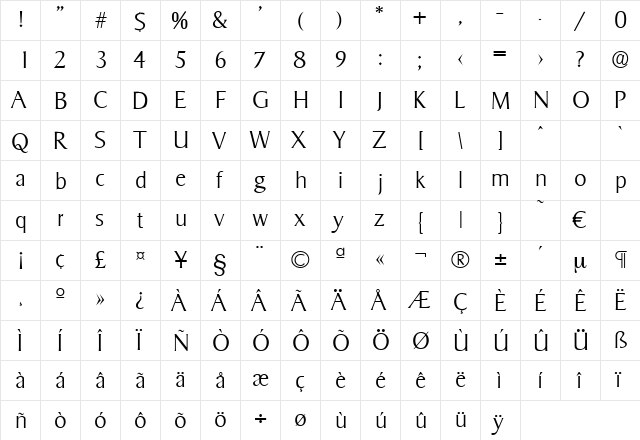
Sigvar-Xlight Regular
Design Context for Sigvar-Xlight Typeface
Sigvar-Xlight takes a measured approach to typography — its balanced proportions and neutral character make it a reliable workhorse for both digital and print work. Its slender proportions lend an understated elegance to any composition.